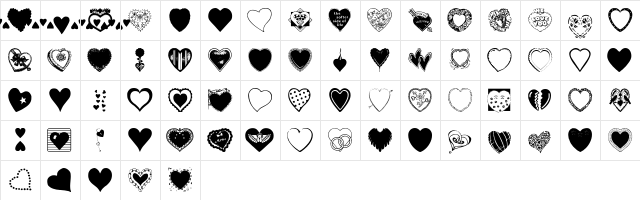
Hearts Galore Regular Free Font
Hearts Galore Regular
Design Context for Hearts Galore
Hearts Galore is a composed and adaptable typeface that performs quietly and consistently across a wide range of design contexts.